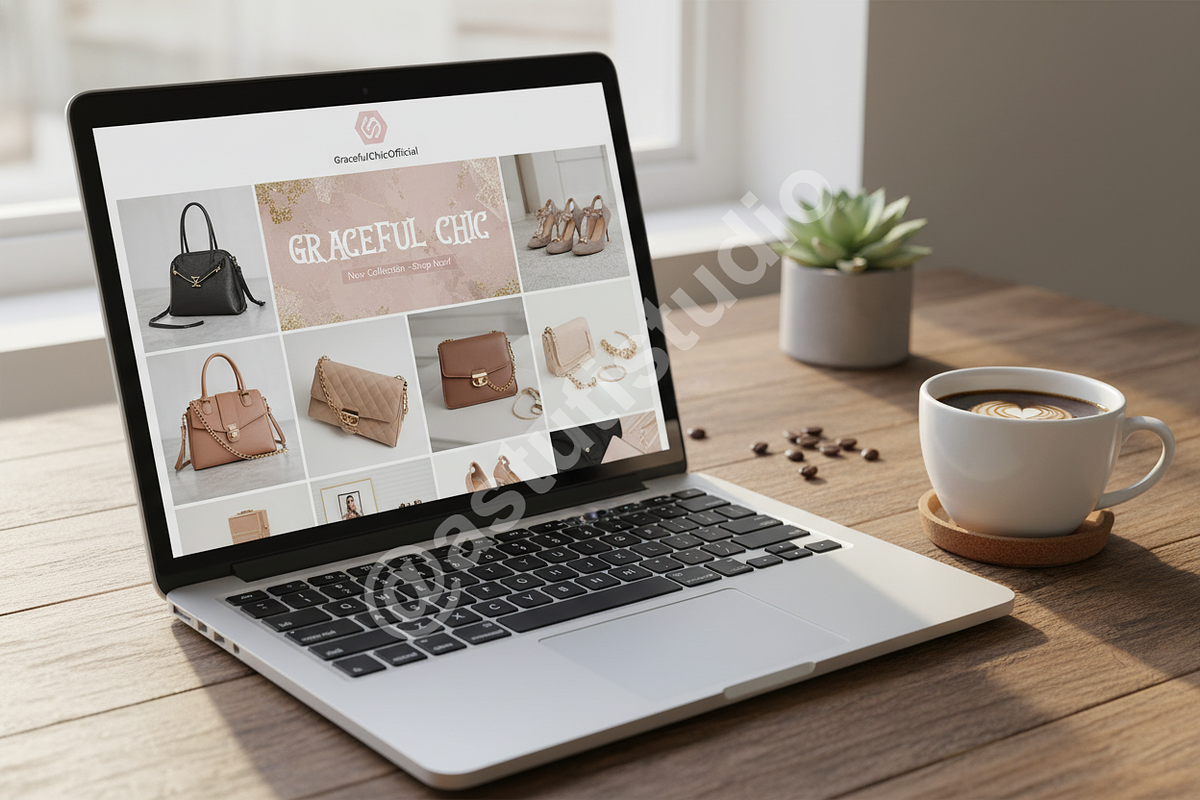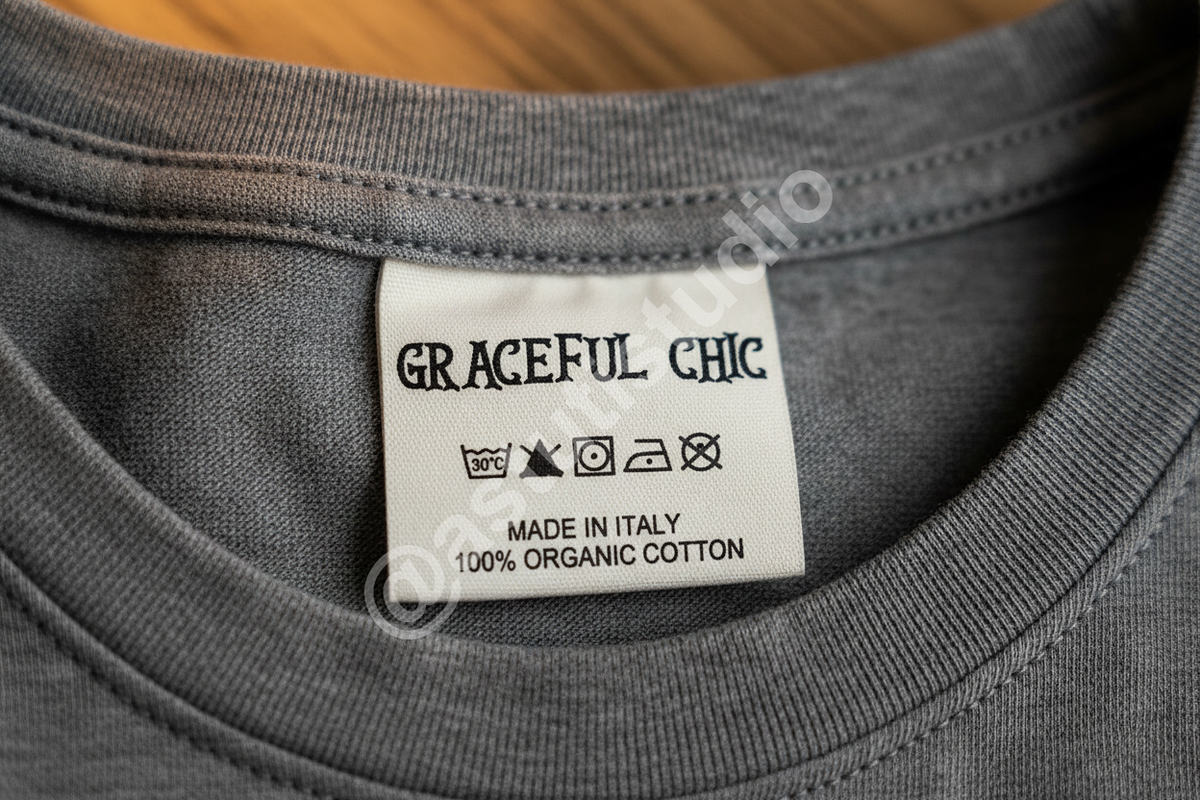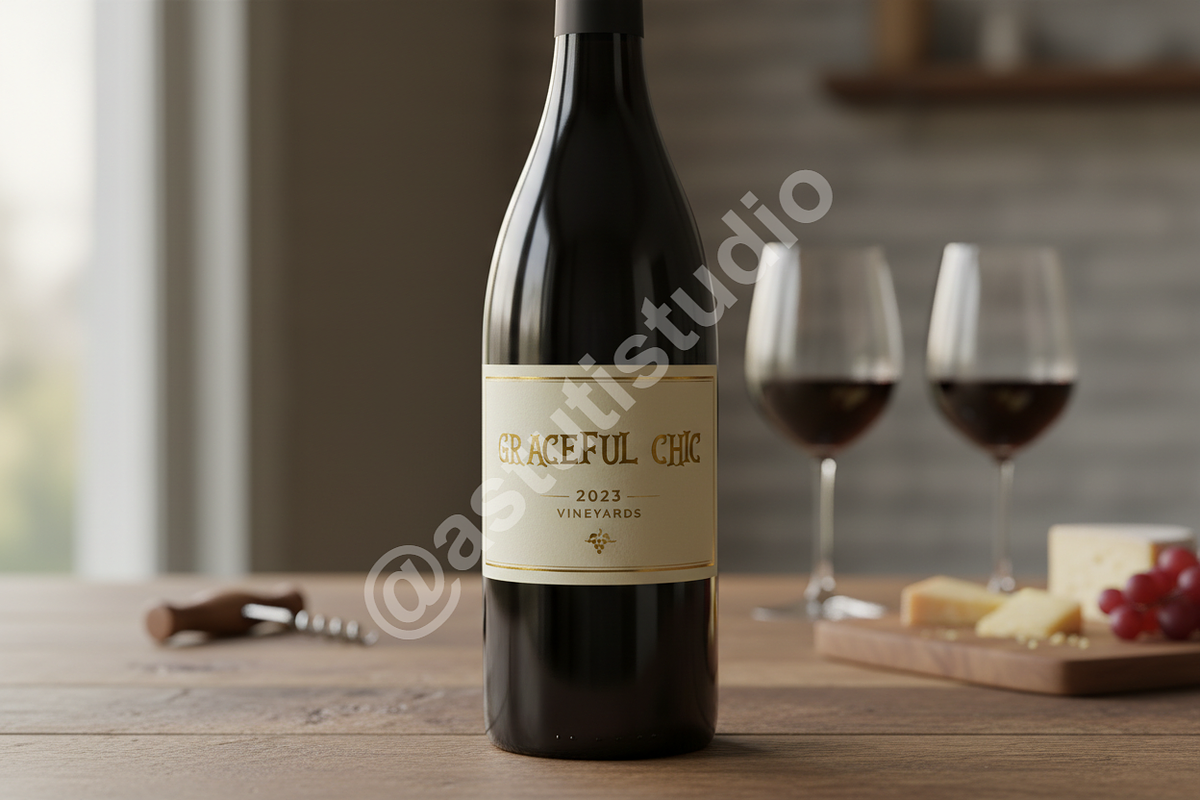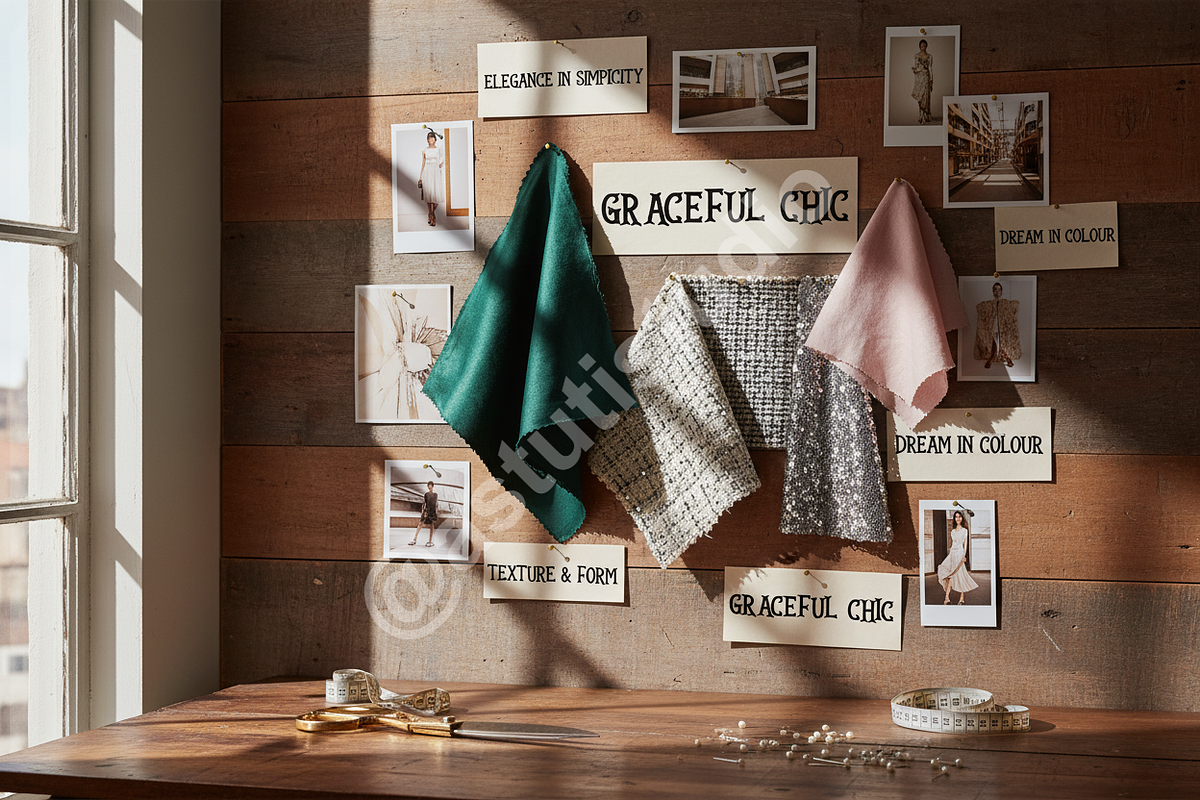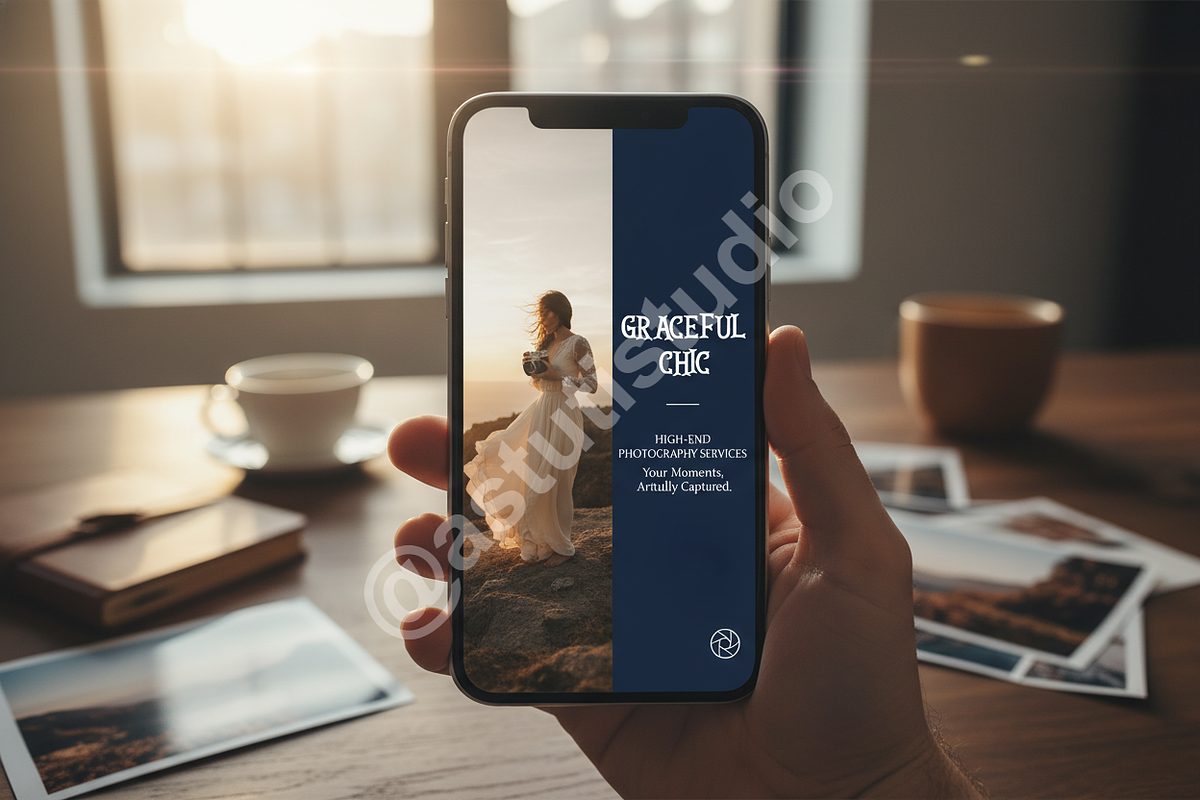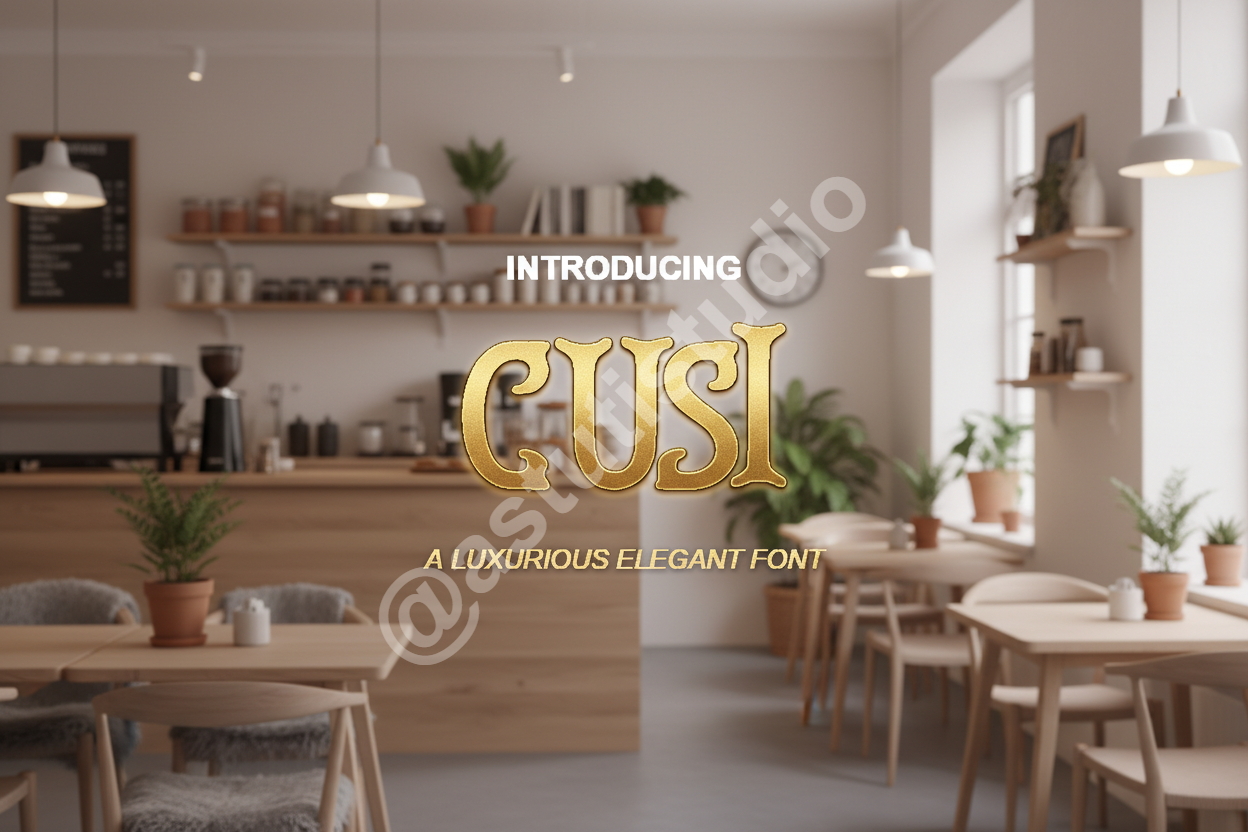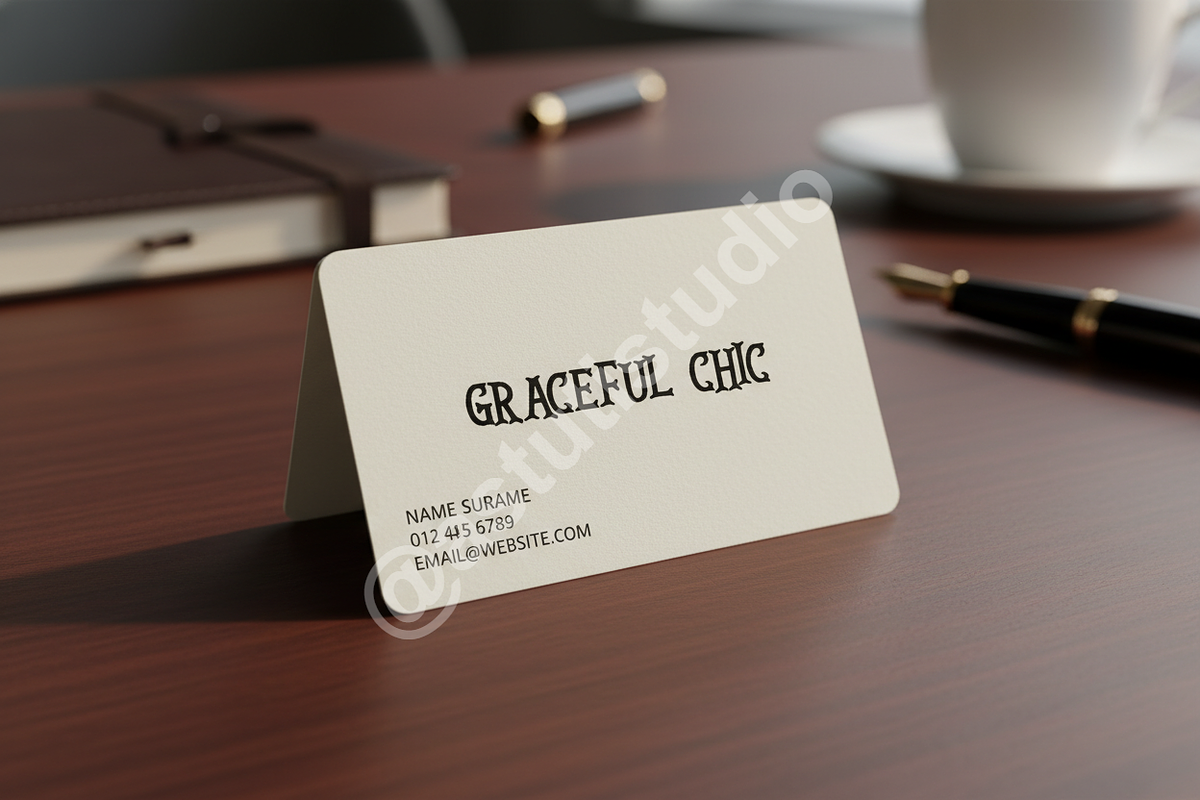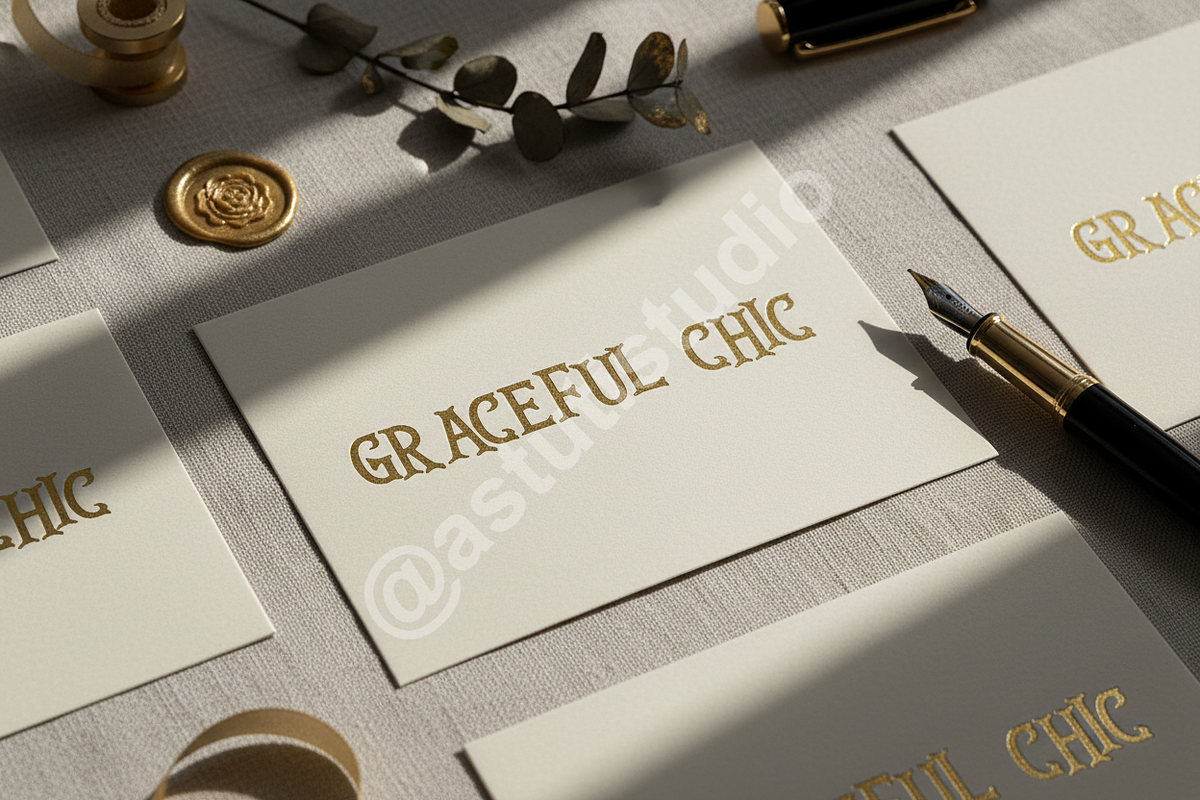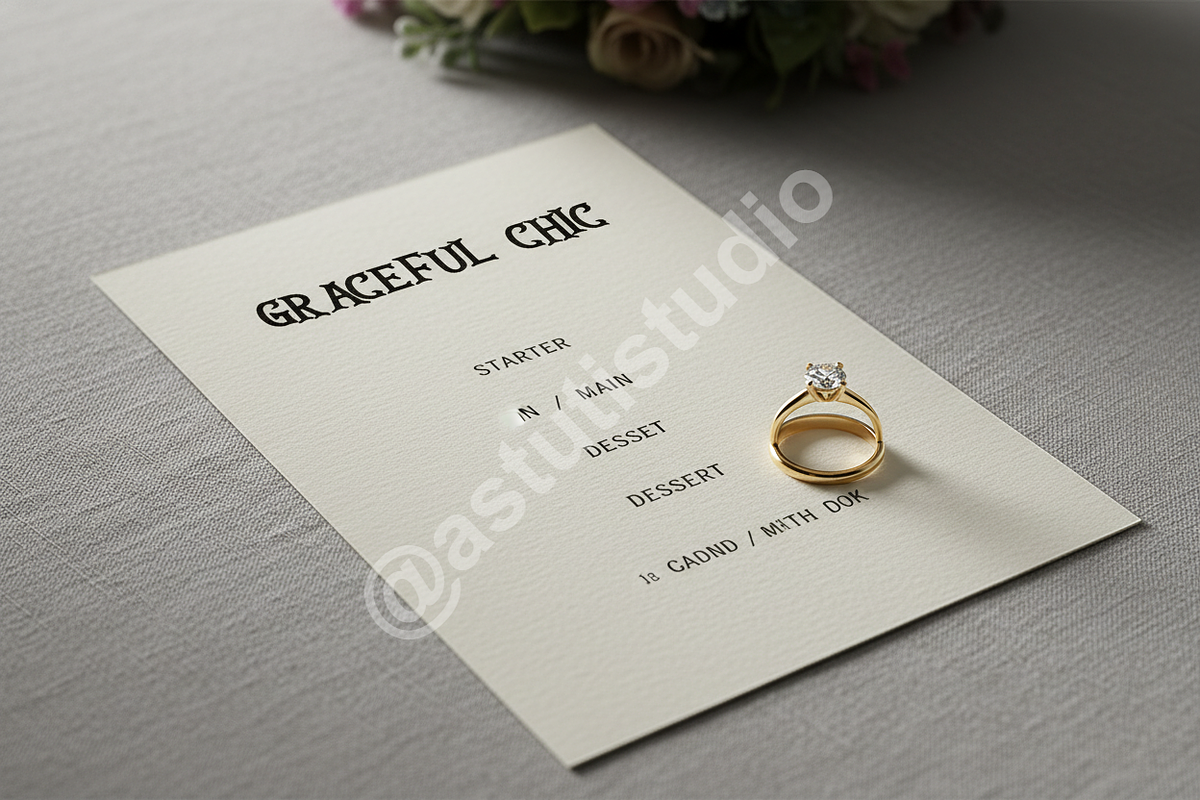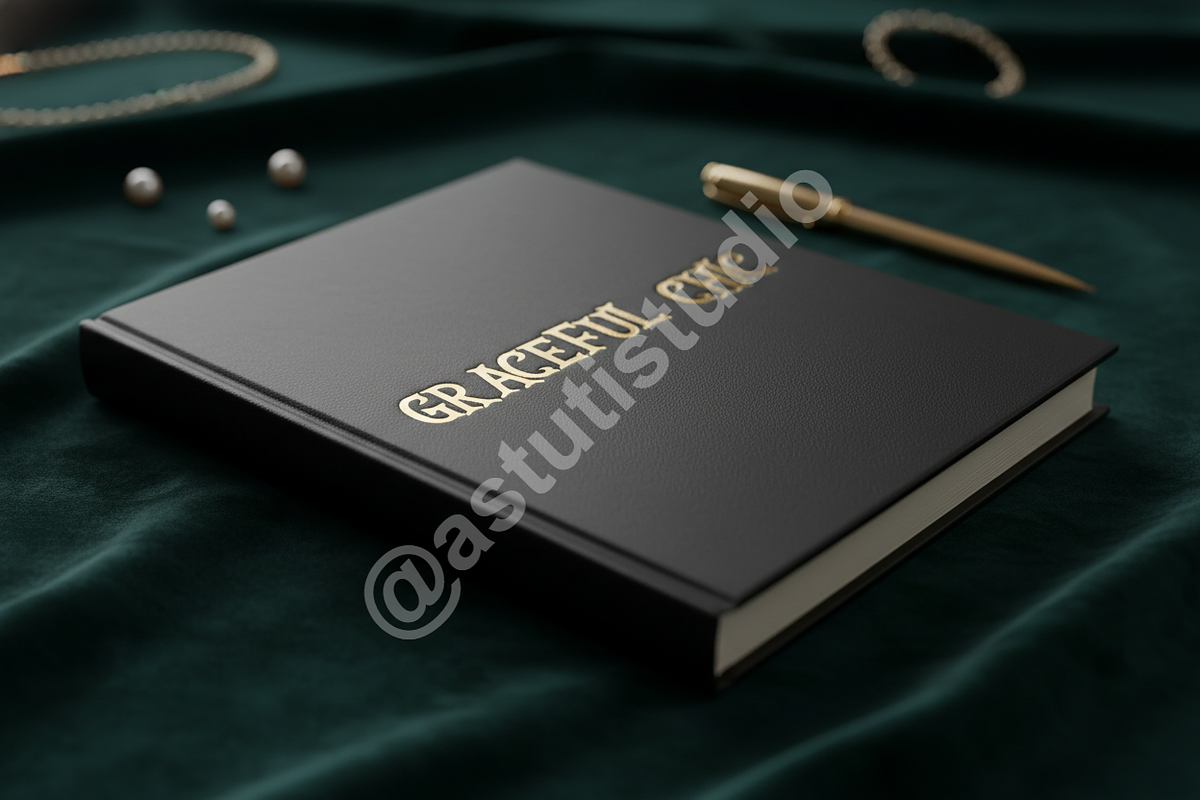
Cusi | Modern Luxury Serif Typeface
Cusi is a sophisticated and meticulously crafted serif typeface designed to elevate high-end visual communication. Inspired by timeless elegance and modern restraint, Cusi delivers unparalleled class for projects demanding prestige. Its balanced forms and subtle contrast make it the perfect vehicle for translating luxury into typography.
- Upper and Lowercase Glyphs: Comprehensive character set for versatile use.
- Extensive Punctuation & Numerals: Full support for professional text settings.
- Multilingual Support: Ready for global branding initiatives (Latin Extended).
- OpenType Features: Includes elegant ligatures and stylistic alternates for custom lettering.
- Premium Aesthetic: Optimized for both large display headlines and detailed body text.
Ideal Applications:
Cusi excels in environments where sophistication is paramount:
- Luxury Branding & Logos (Fashion, Hospitality, Cosmetics).
- High-End Editorial Design (Magazine layouts, Book covers).
- Elegant Social Media Graphics & Product Packaging.
- Website Headers and Premium E-commerce.